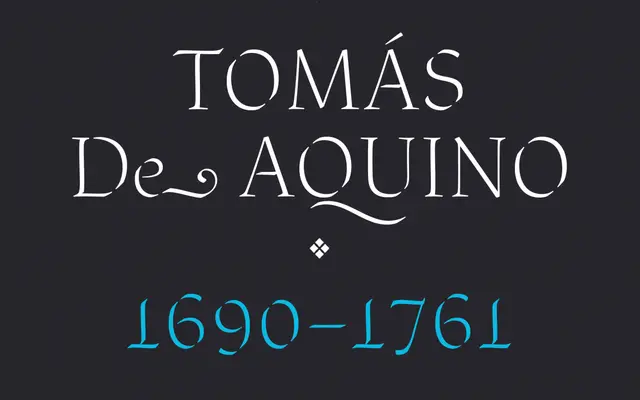
Aquino
A display stencil typeface drawn from an 18th-century Portuguese Cistercian manuscript, with serifed letterforms built on unconnected calligraphic strokes.
Derived from the 1735 liturgical manuscript Collectaneum Sacri Ordinis Cisterciensis by Friar Tomás Aquino, the typeface translates his consistent, unconnected penwork into stencil-like display letterforms. The lowercase follows the manuscript's original minuscule structures directly, while the uppercase was largely redrawn for structural consistency with the lowercase logic rather than reproducing Aquino's ornate majuscules. Available in five weights from Thin to Bold, it carries an unusual historical specificity rare in display type.
Classified as display due to its stencil-like calligraphic construction derived from 18th-century liturgical manuscript lettering; the unconnected strokes and serifed letterforms place it firmly in decorative display territory rather than conventional text use.